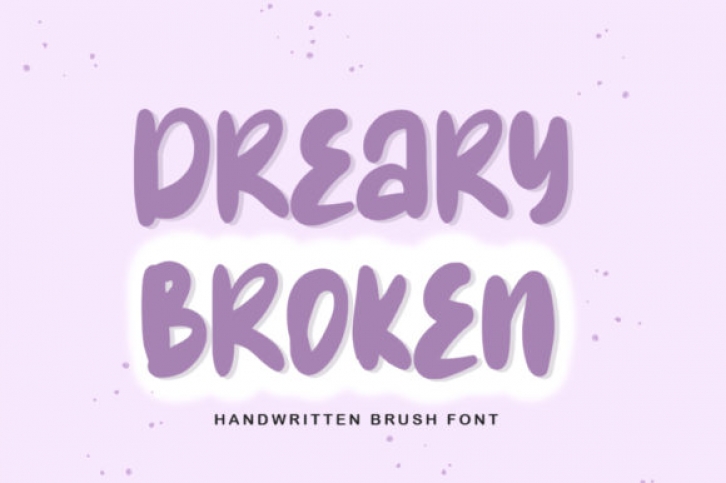
Dreary Broken is an adorable and playful display font. It will add a joyful touch to your crafting designs, school projects and anything else that may need a happy vibe!